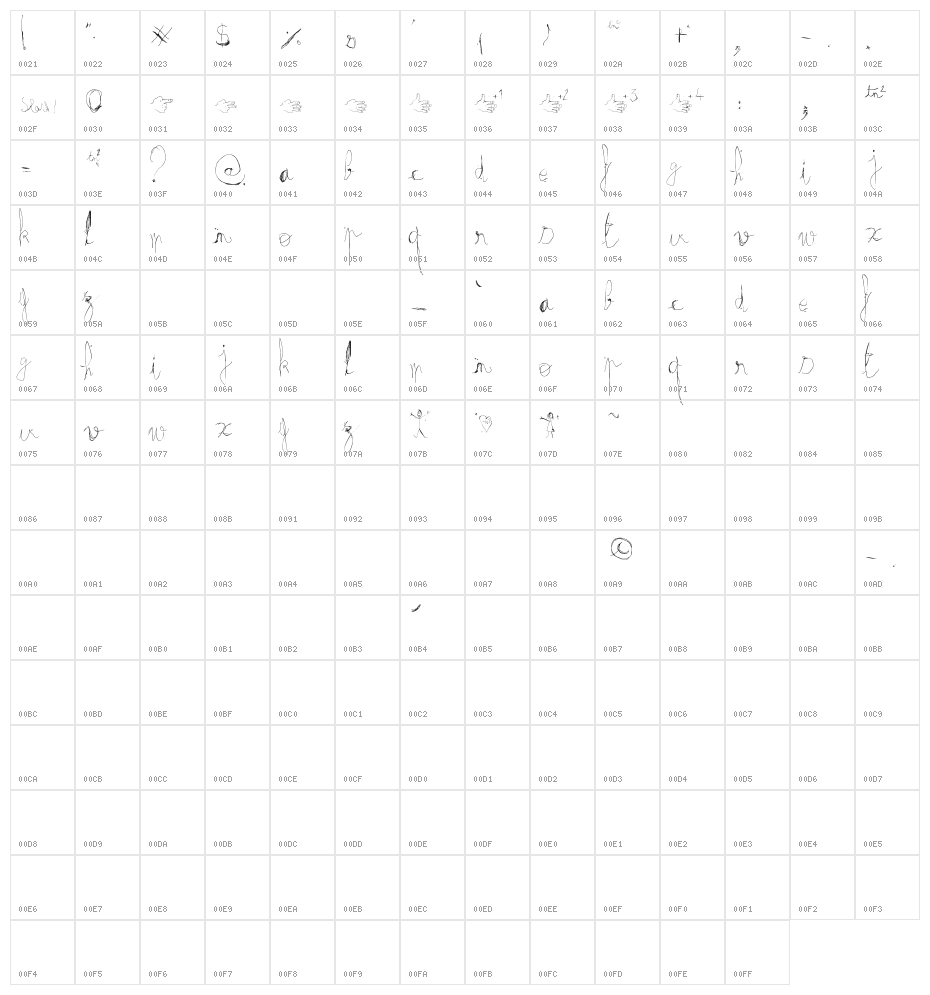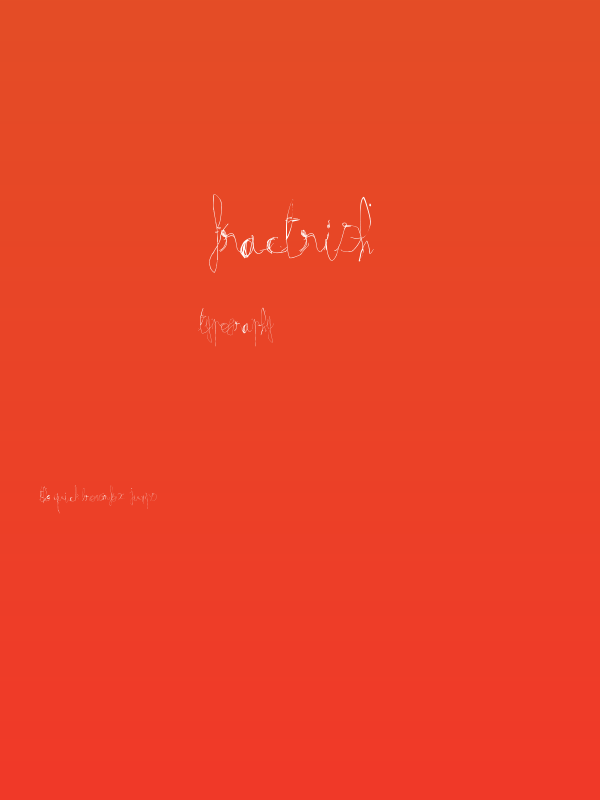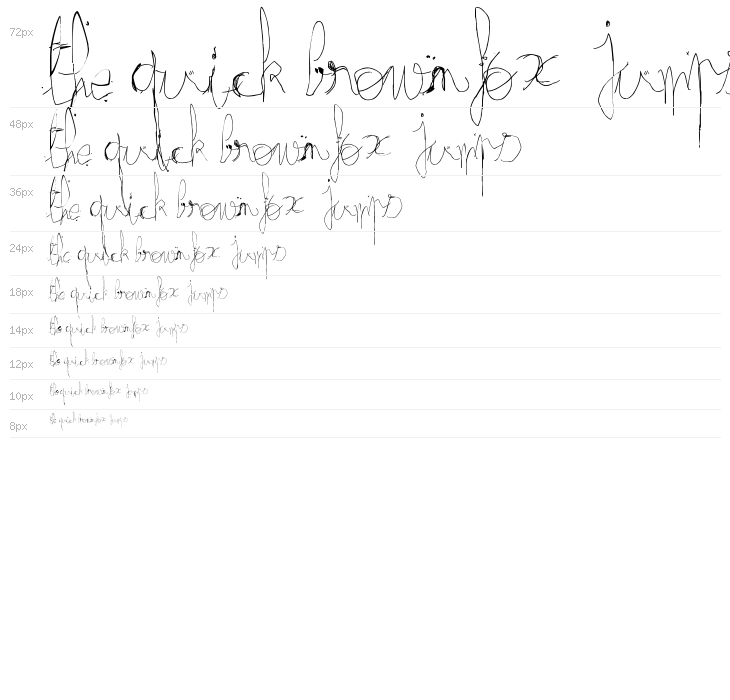
fractrish Font
fractrish Description
This font features a highly decorative and artistic style, characterized by its fluid, cursive script that appears hand-drawn. The letters are interconnected with elaborate loops and swirls, giving it a whimsical and playful appearance. The uppercase and lowercase letters maintain a consistent style, with exaggerated ascenders and descenders that add to its unique charm. The numbers and special characters follow the same artistic theme, with some characters incorporating additional decorative elements. This font is not suited for formal or professional use due to its highly stylized nature, but it excels in creative and artistic projects where a personal touch is desired.
| Use Case | Logos, Artistic projects, Invitations |
| Proposed Projects | Ideal for artistic projects, invitations, greeting cards, and creative branding. |